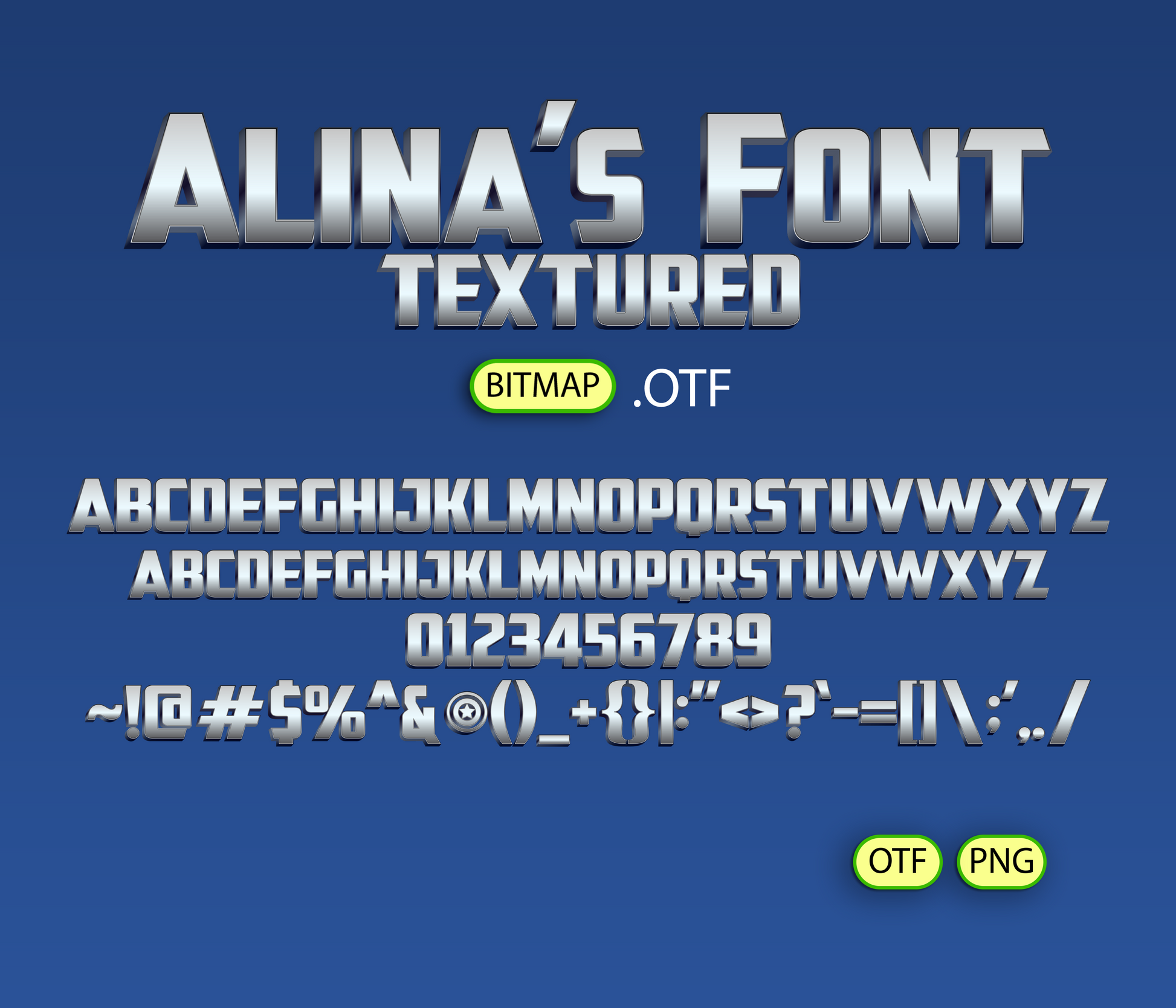
Patriotic Sentinel Font Textured
Step into the valiant world of national heroism with our Patriotic Sentinel font, capturing the essence of unwavering courage and legendary American spirit. Perfect for comic fans, party planners, event organizers, and designers, this font brings the steadfast, honorable character of a disc-wielding protector to your projects. Create inspiring materials, merchandise, or digital content with the noble energy of freedom and justice.
Our Patriotic Sentinel font features bold, resolute lines and determined characters reflecting the world of virtuous champions. Ideal for:
1. Event Promotions: Create inspiring invites, posters, and banners for flag-waving celebrations, illustrated story conventions, and themed parties that capture the spirit of fearless dedication
2. Merchandise Design: Perfect for t-shirts, posters, and accessories that showcase the unwavering side of red-white-and-blue gallantry
3. Digital Media: Enhance websites, blogs, and social media with commanding headers and graphics that express the devotion to liberty and righteousness
4. Illustrated Content: Add authentic flair to fan art, masked hero designs, and creative projects inspired by round-shield defenders
5. Personal Projects: Bring valorous charm to scrapbooking, DIY crafts, and home decor inspired by the world of star-adorned bravery
Our font pays tribute to the inspiring world of national champions, empowering your designs with its courageous and honorable spirit. Whether crafting promotional materials, designing merchandise, or adding a valiant touch to personal projects, this font communicates the noble essence of democratic ideals. Ready to inject heroic fortitude into your creations? This font is your key to exciting, impactful design.